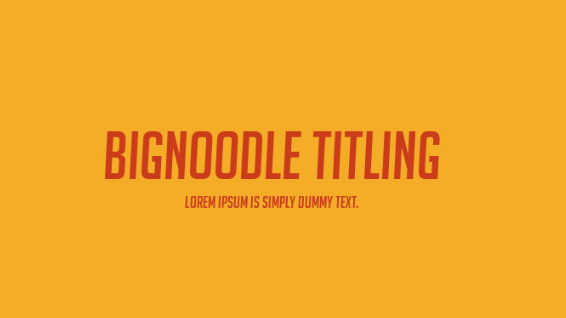
Big Noodle Titling Font Family is a contemporary sans-serif font family that includes three fonts. Designed by James Arboghast, it features a universal set of capitals inspired by gothic architecture and the principle of width.
This typeface contains two weights including Oblique and Regular and it has more than 165 stylish characters, which are uppercase, lowercase, numerals, and special characters.
Big Noodle Titling Font